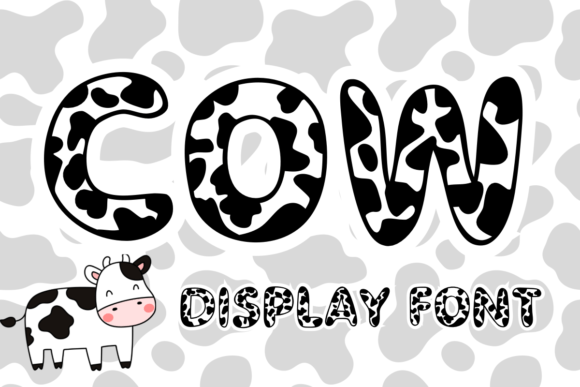
Cow Font: Add a Touch of Whimsy to Your Designs with this Playful Display Font
In the world of typography, fonts play a crucial role in conveying the tone and personality of a design. When it comes to creating visually appealing and engaging content, the right font can make all the difference. If you’re looking for a font that adds a touch of whimsy and playfulness to your designs, look no further than Cow Font. In this article, we’ll explore the features and benefits of Cow Font, and how it can elevate your designs to the next level.
What is Cow Font?
Cow Font is a cute, patterned display font that is designed to add a touch of whimsy to any design. Its playful characters feature delightful cow-inspired patterns, adding charm and personality to projects. The font is perfect for designers who want to create visually appealing content that stands out from the crowd.
Key Features of Cow Font
- Playful Characters: Cow Font features playful characters that are designed to add a touch of whimsy to your designs. Each character is carefully crafted to ensure that it is both fun and legible.
- Cow-Inspired Patterns: The font features delightful cow-inspired patterns that add charm and personality to projects. The patterns are carefully designed to be both visually appealing and cohesive.
- Display Font: Cow Font is a display font, making it perfect for use in headlines, titles, and other display text.
- Multilingual Support: The font supports multiple languages, making it a great choice for designers who work with international clients.
Use Cases for Cow Font
Cow Font is a versatile font that can be used in a variety of design projects. Here are some use cases where Cow Font really shines:
- Children’s Books: Cow Font is perfect for use in children’s books, where a playful and whimsical font can help bring the story to life.
- Posters: The font is also great for use in posters, where a bold and eye-catching font can help grab the viewer’s attention.
- Branding: Cow Font can be used in branding projects where a fun and playful tone is desired. It’s perfect for companies that want to convey a sense of friendliness and approachability.
Benefits of Using Cow Font
There are many benefits to using Cow Font in your designs. Here are a few:
- Unique and Eye-Catching: Cow Font is a unique and eye-catching font that can help your designs stand out from the crowd.
- Playful and Whimsical: The font adds a playful and whimsical touch to designs, making it perfect for projects where a fun tone is desired.
- Easy to Read: Despite its playful nature, Cow Font is easy to read, making it perfect for use in body text as well as display text.
Tips for Using Cow Font
Here are a few tips for using Cow Font in your designs:
- Use it Sparingly: Cow Font is a bold and eye-catching font, so it’s best to use it sparingly. Use it for headlines and titles, and a more straightforward font for body text.
- Pair it with a Simple Font: To create visual interest, pair Cow Font with a simple font. This will help create contrast and make your design more visually appealing.
- Experiment with Colors: Cow Font looks great in a variety of colors, so don’t be afraid to experiment. Try using different colors to create a unique and eye-catching design.
In conclusion, Cow Font is a playful and whimsical display font that can add a touch of creativity to your designs. Its unique and eye-catching characters make it perfect for use in children’s books, posters, and branding projects where a fun and playful tone is desired. With its easy-to-read design and multilingual support, Cow Font is a great choice for designers who want to create visually appealing content that stands out from the crowd.
- What is Cow Font? Cow Font is a cute, patterned display font that adds whimsy to any design.
- What is Cow Font used for? Cow Font is perfect for use in children’s books, posters, and branding projects where a fun and playful tone is desired.
- Is Cow Font easy to read? Yes, despite its playful nature, Cow Font is easy to read, making it perfect for use in body text as well as display text.